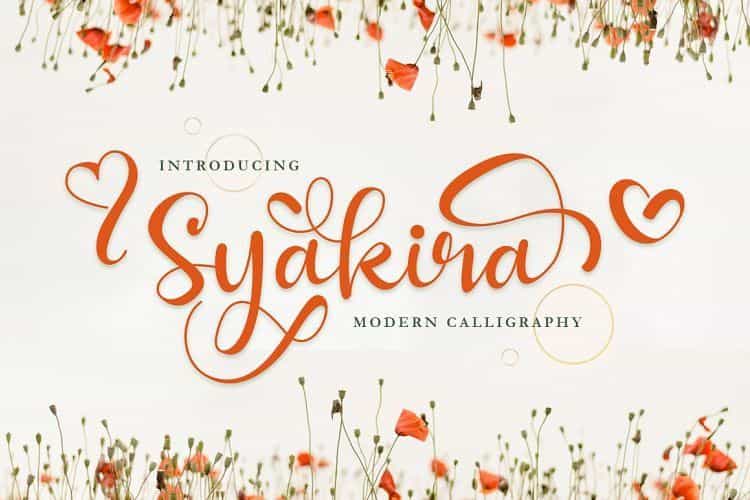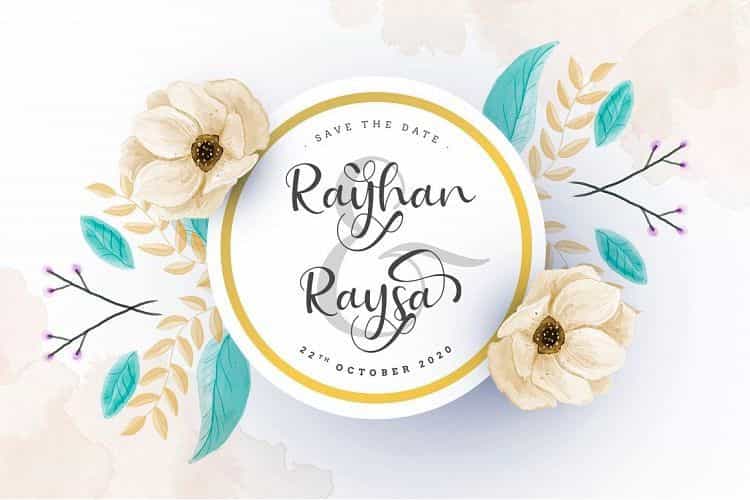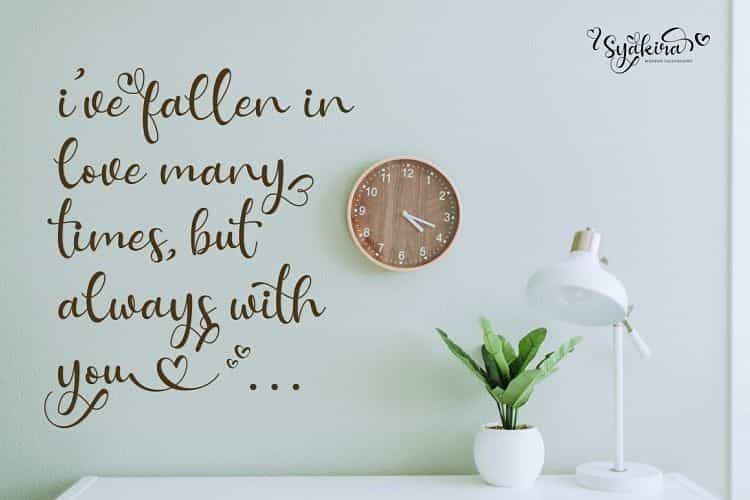
“Syakira Font” is a font special for Valentine’s Day. Apply this romantic font to all the designs that you are currently working on. Syakira Calligraphy font has a lovely alternative style. It is created and distributed by EmbunStudio.